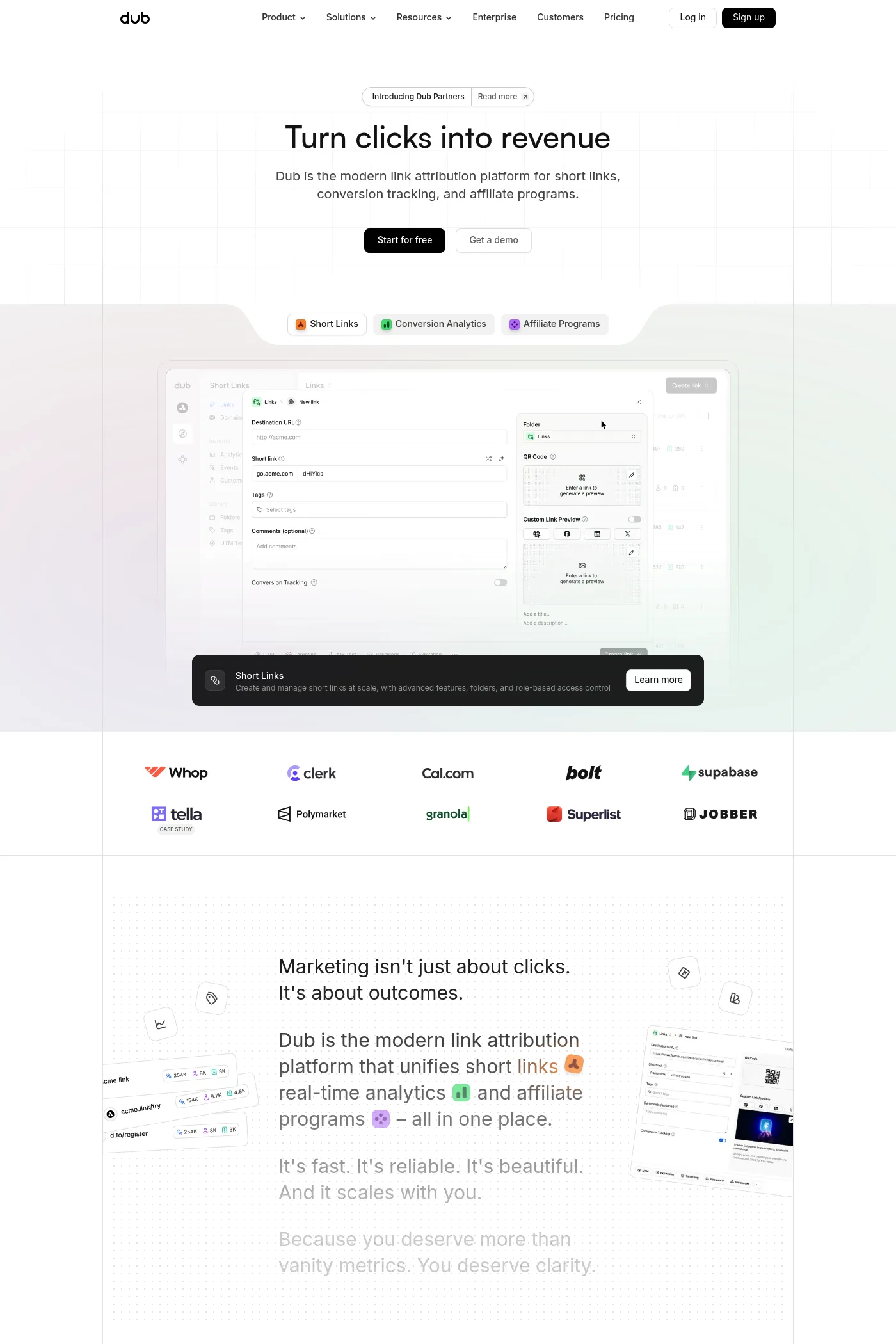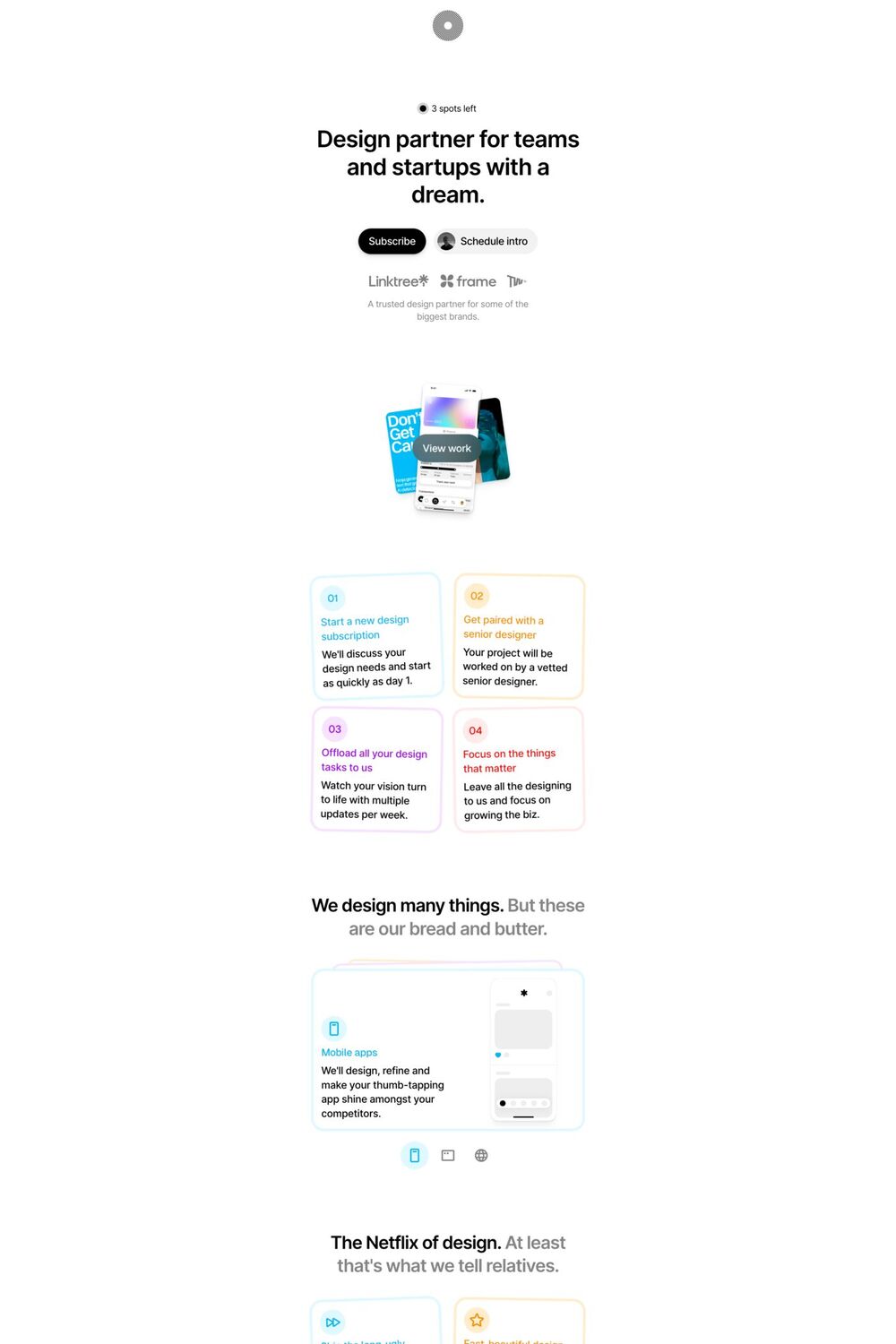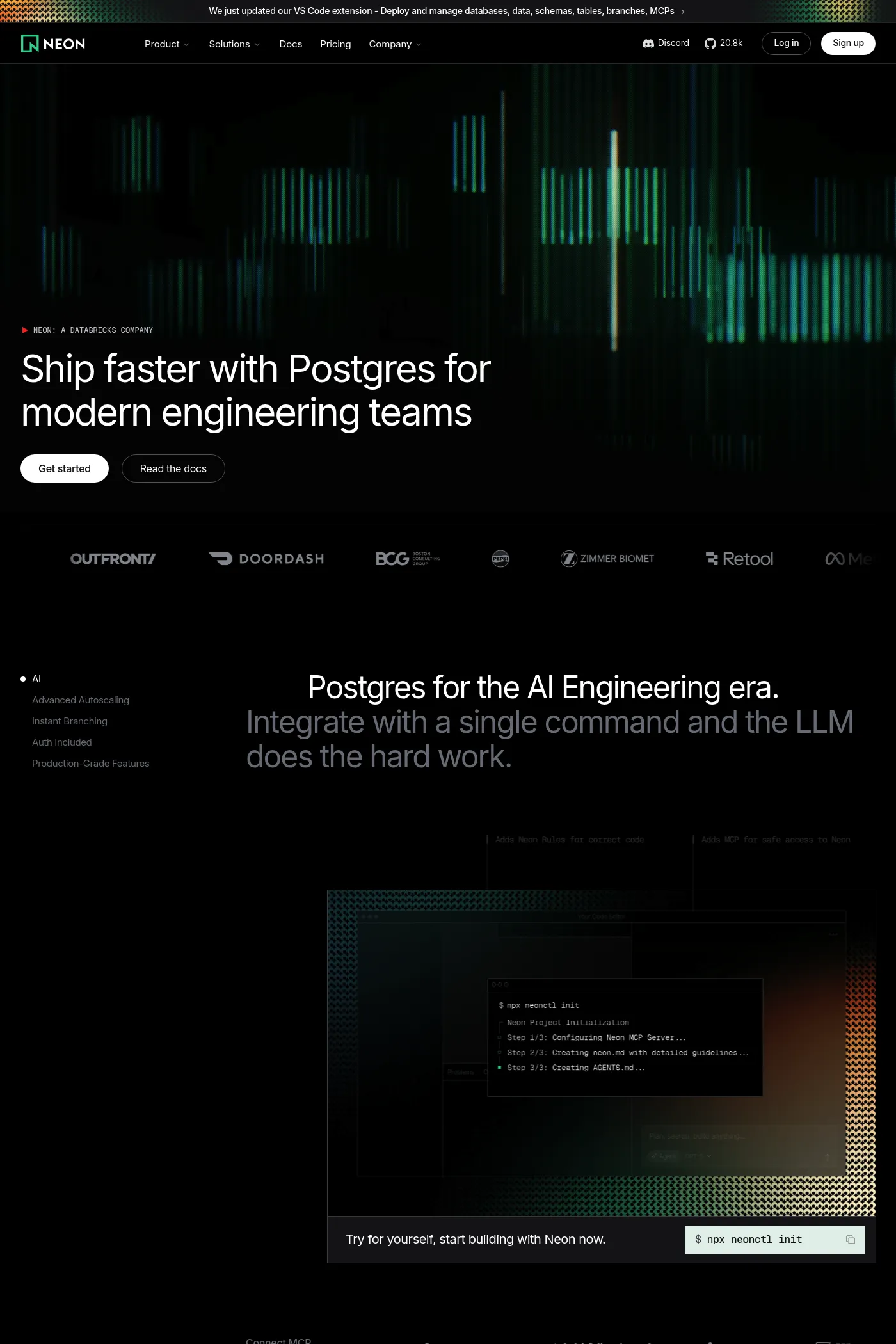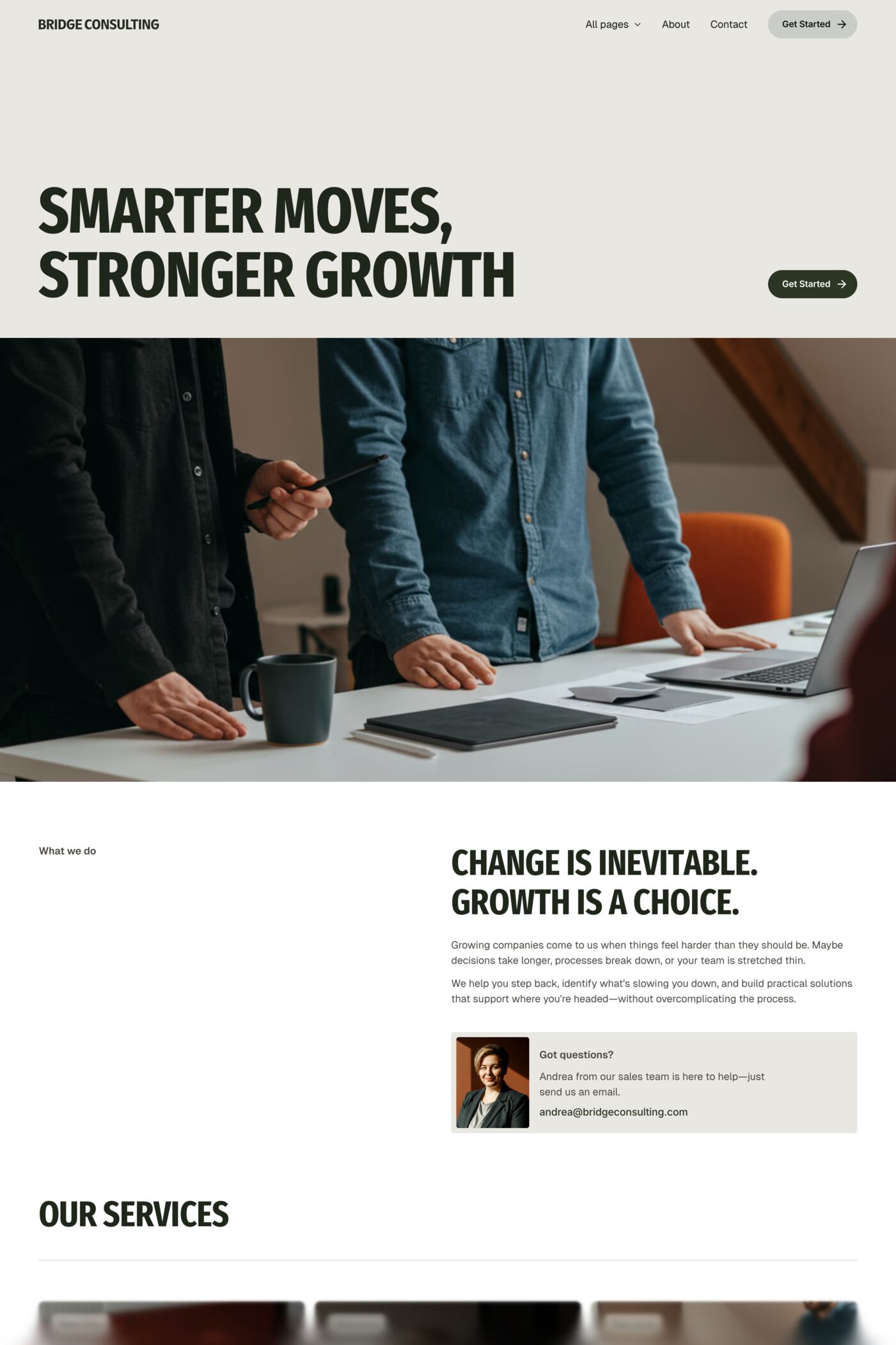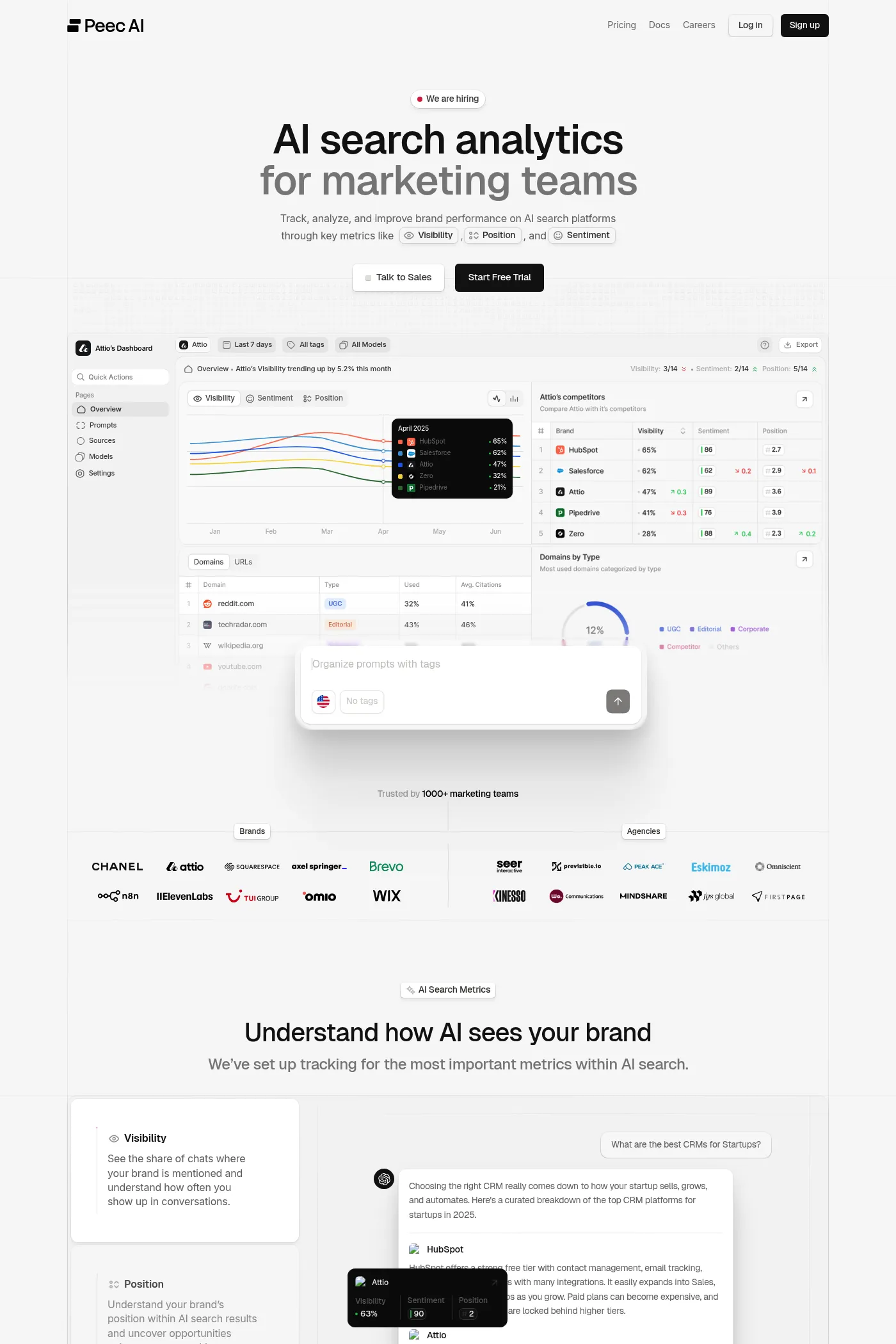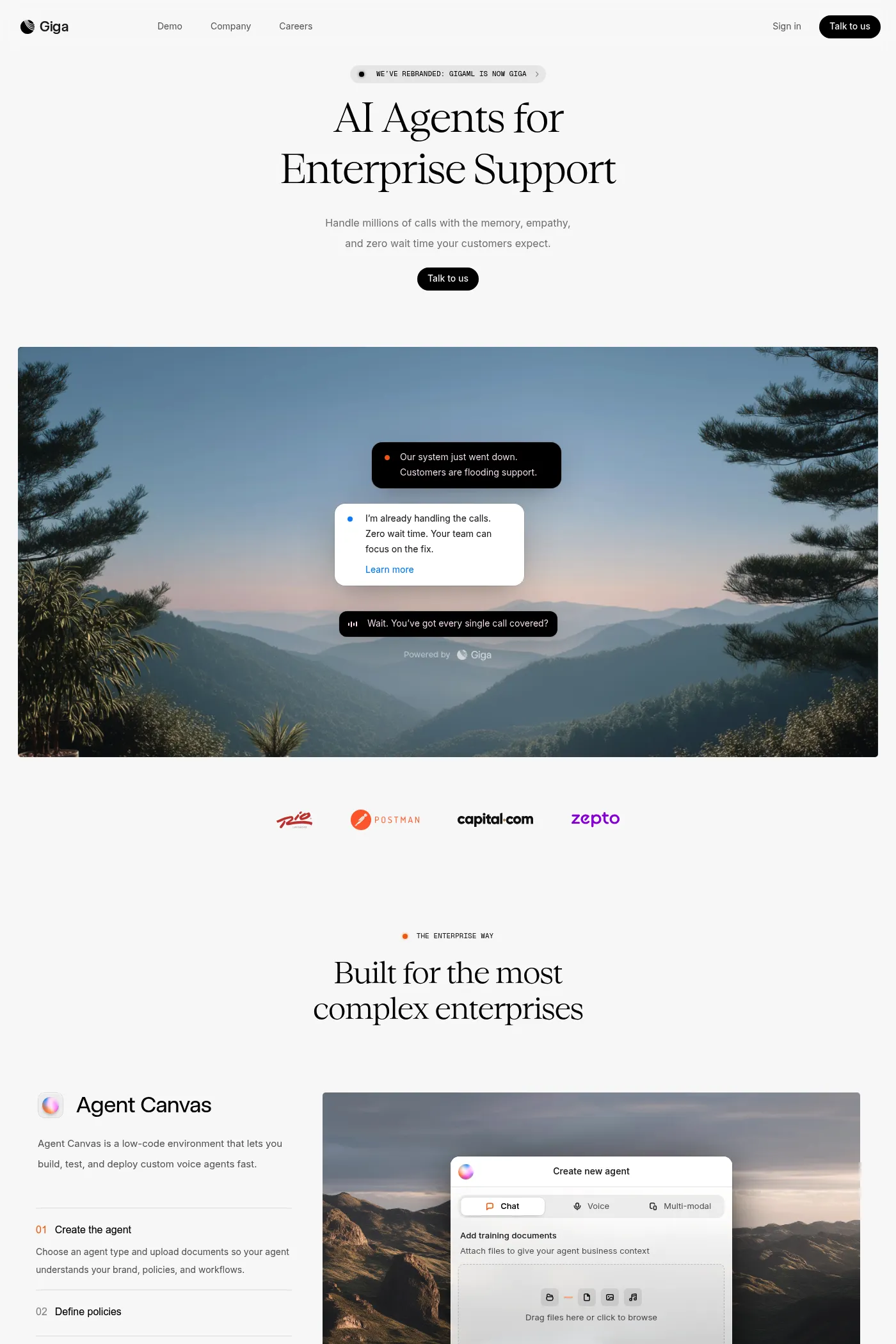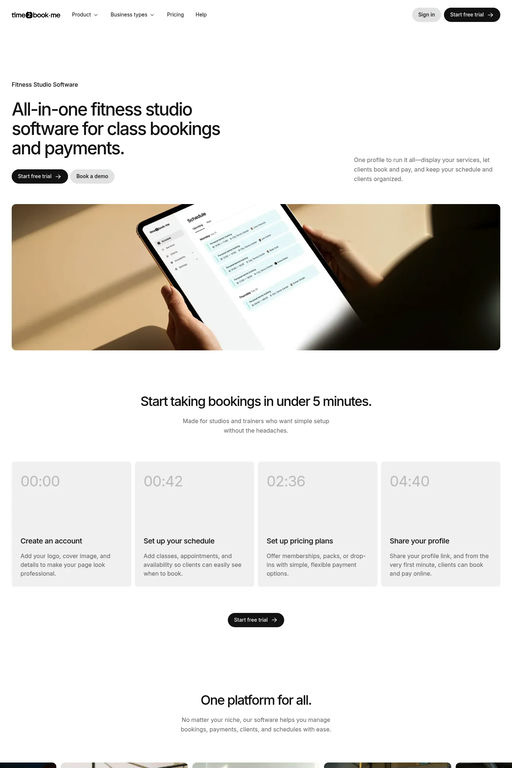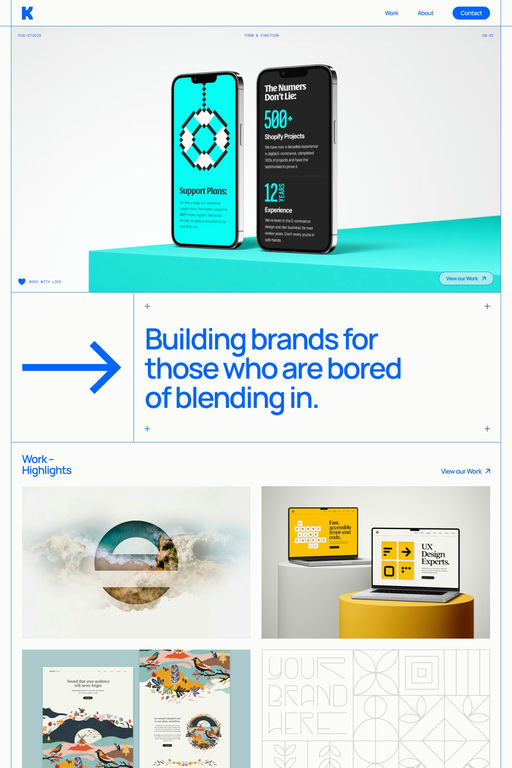
This font pairing is commonly used across landing, template, portfolio and agency websites. The combination of Geist and Inter works well for both headings and body text across different design contexts.
Yes — we’ve found 15 websites that use Geist and Inter together, making it one of the more common font pairings in our gallery of over 1200 curated websites.